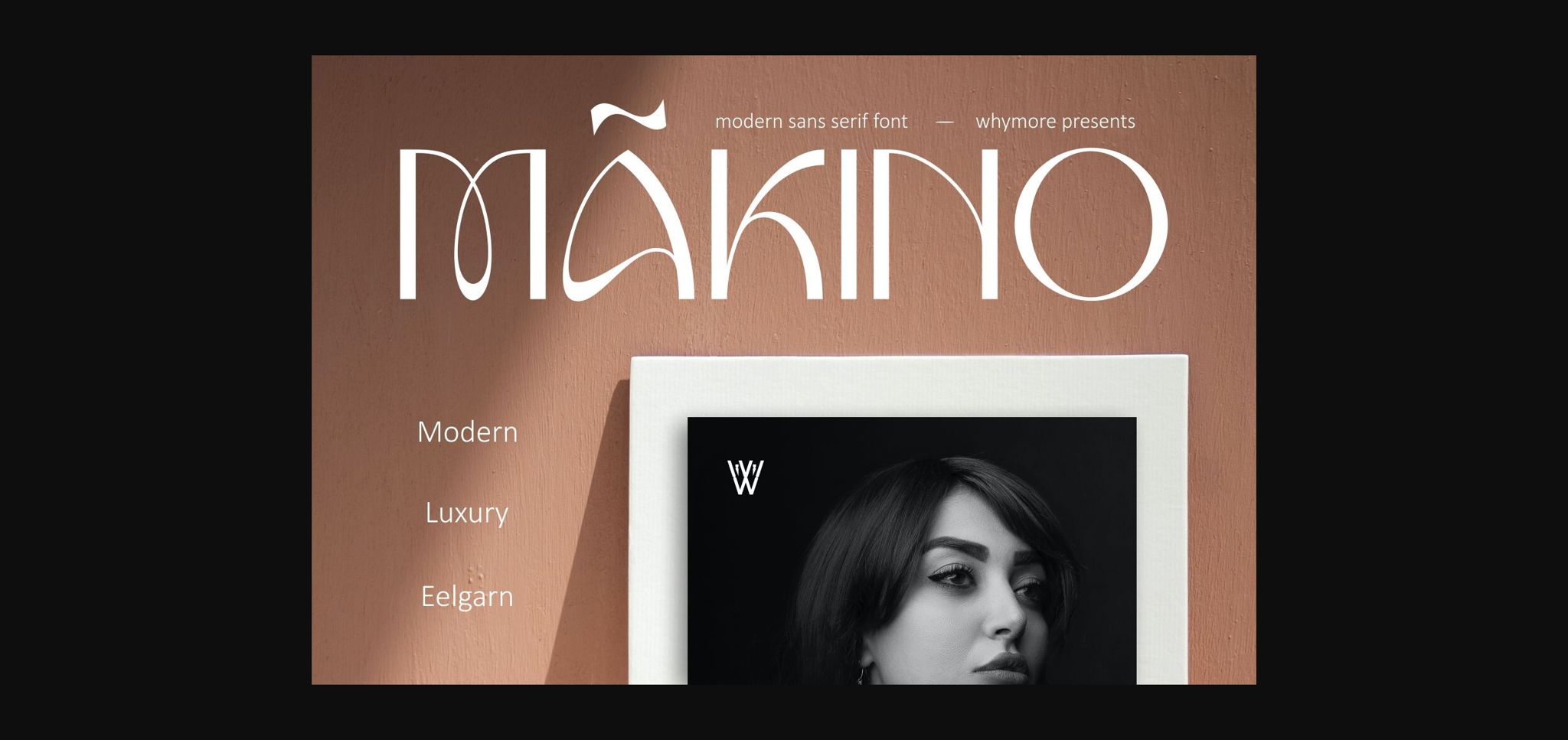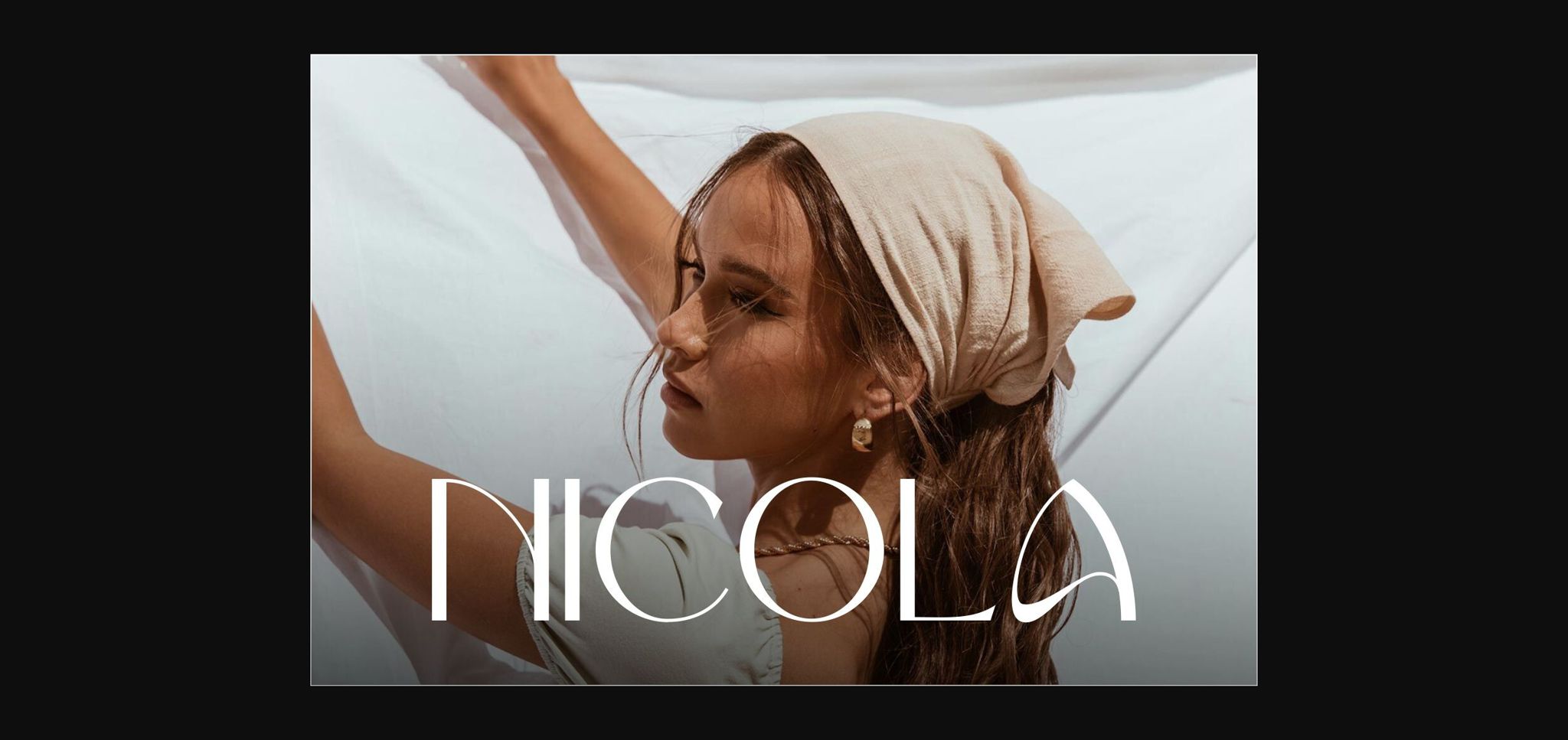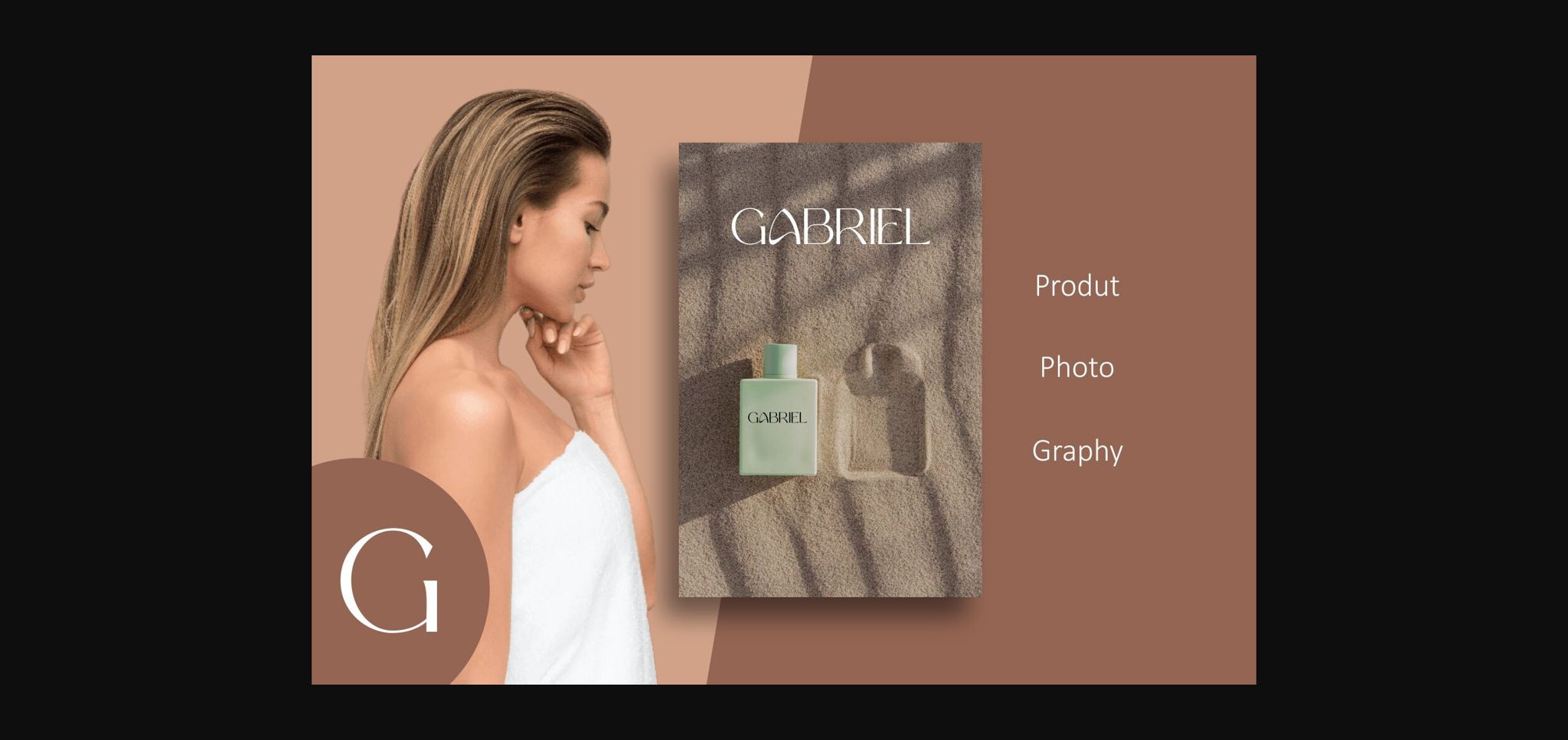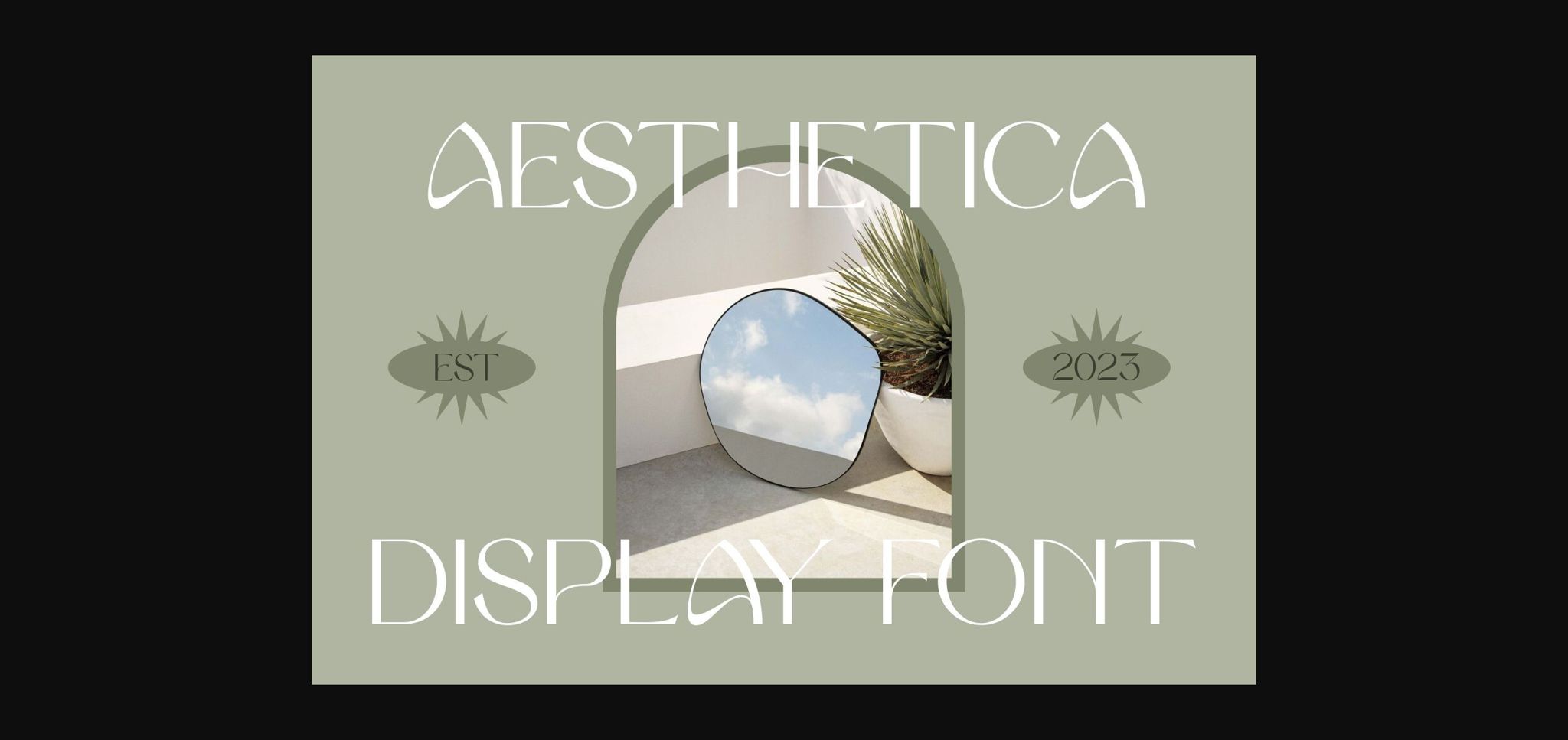
About Makino Font
Makino is a typeface that is flexible and very flexible and is suitable for designs that emphasize aesthetics and beauty. It can display an elegant nature but with an interesting curved shape.